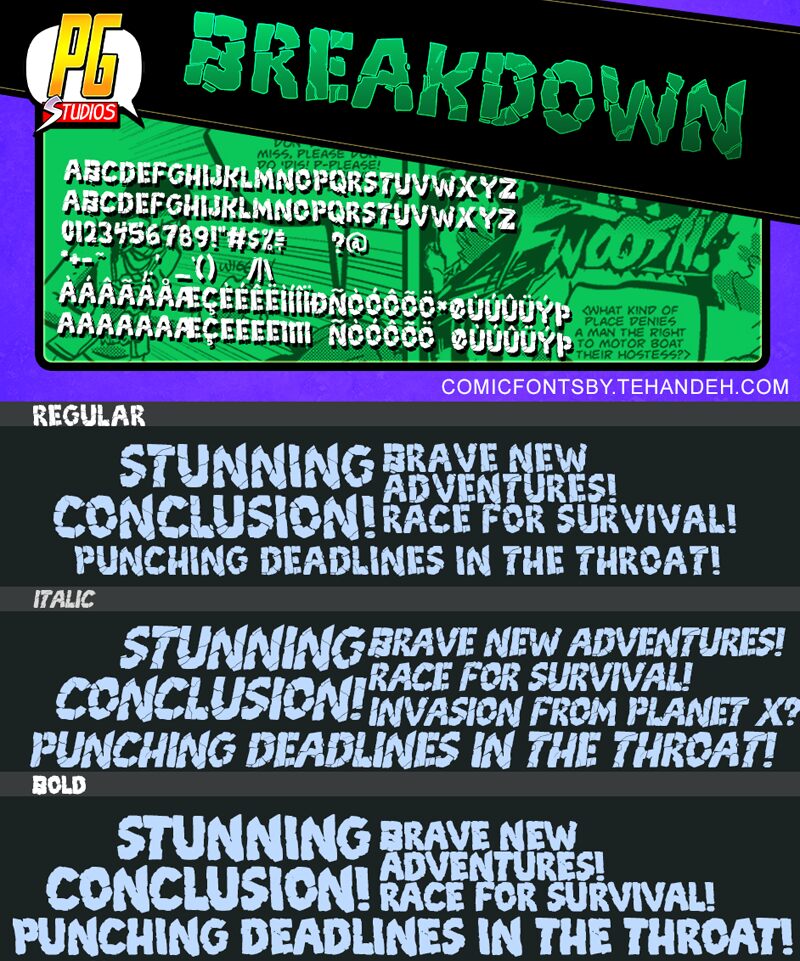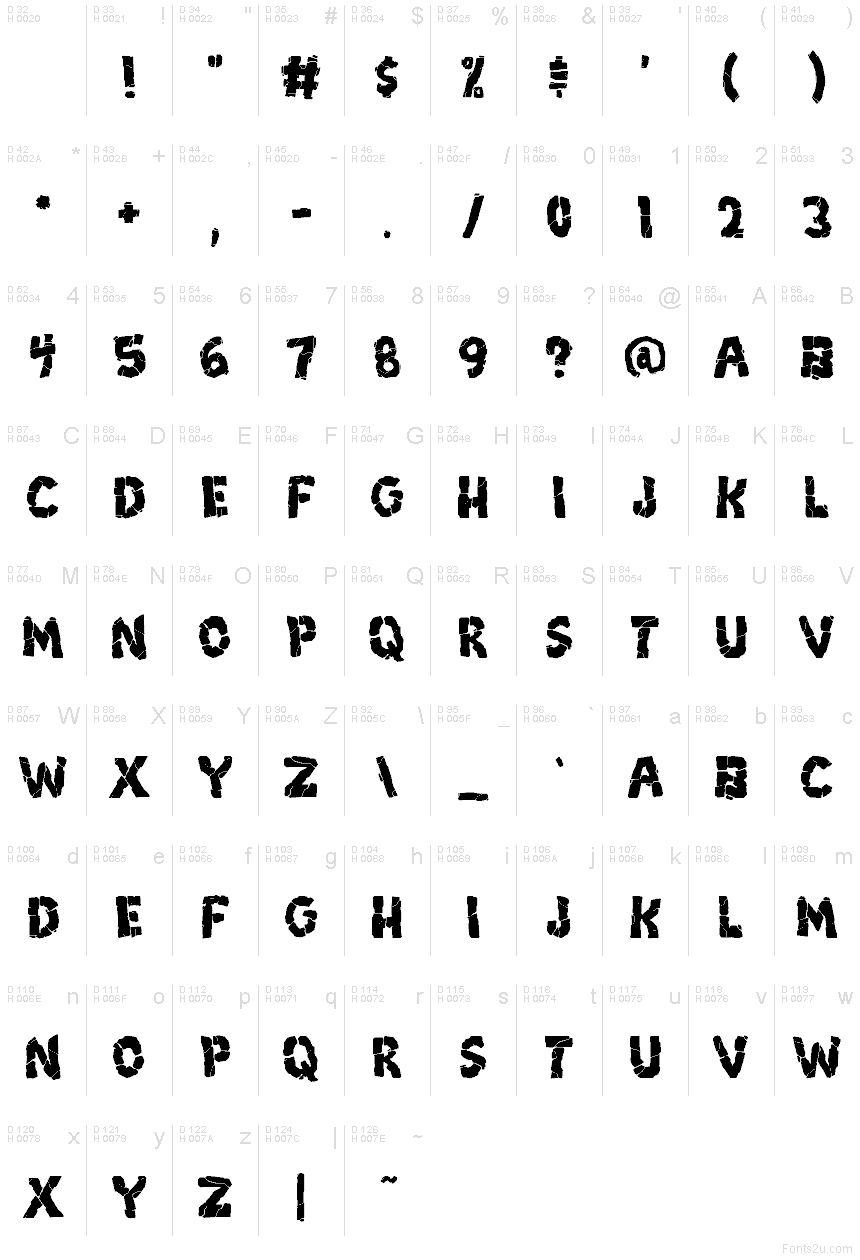
Breakdown PG
Breakdown PG font is a display typeface from PressGang Studios. It features a grungy, distressed texture made out of irregular shapes that give it its unique identity. In addition to delivering an intense mood, the bold font delivers a rebellious aesthetic which can be helpful in delivering certain types of messages and meanings.